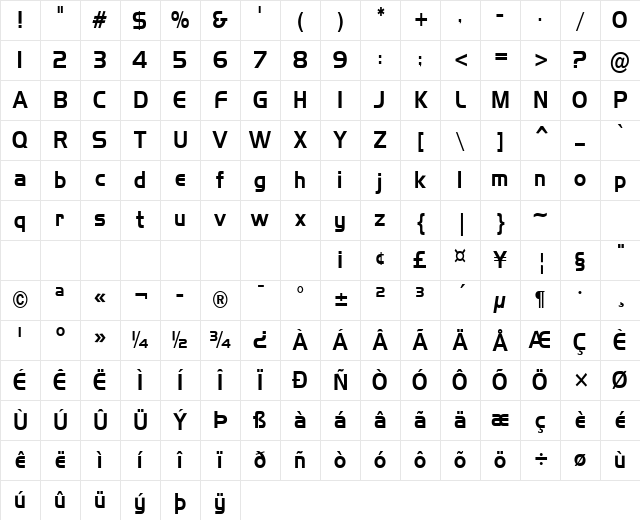
Hanzel-Condensed Normal
Hanzel-Condensed Family
Hanzel-Condensed Normal
Hanzel-Condensed Normal Font Preview
Hanzel-Condensed Normal Uppercase Preview
Hanzel-Condensed Normal Lowercase Preview
Hanzel-Condensed Normal Numeric Preview
Hanzel-Condensed Normal Character Map
Complete Hanzel-Condensed Normal glyph index. Displaying only characters natively supported by Hanzel-Condensed Normal font.
Hanzel-Condensed Normal Character Map
Design Context for Hanzel-Condensed
Hanzel-Condensed is a composed and adaptable typeface that performs quietly and consistently across a wide range of design contexts. Its narrow stance lets it pack a punch even in space-constrained designs.
Pro Tip: Use Hanzel-Condensed in both headline and body roles to test its range before committing to a single application.